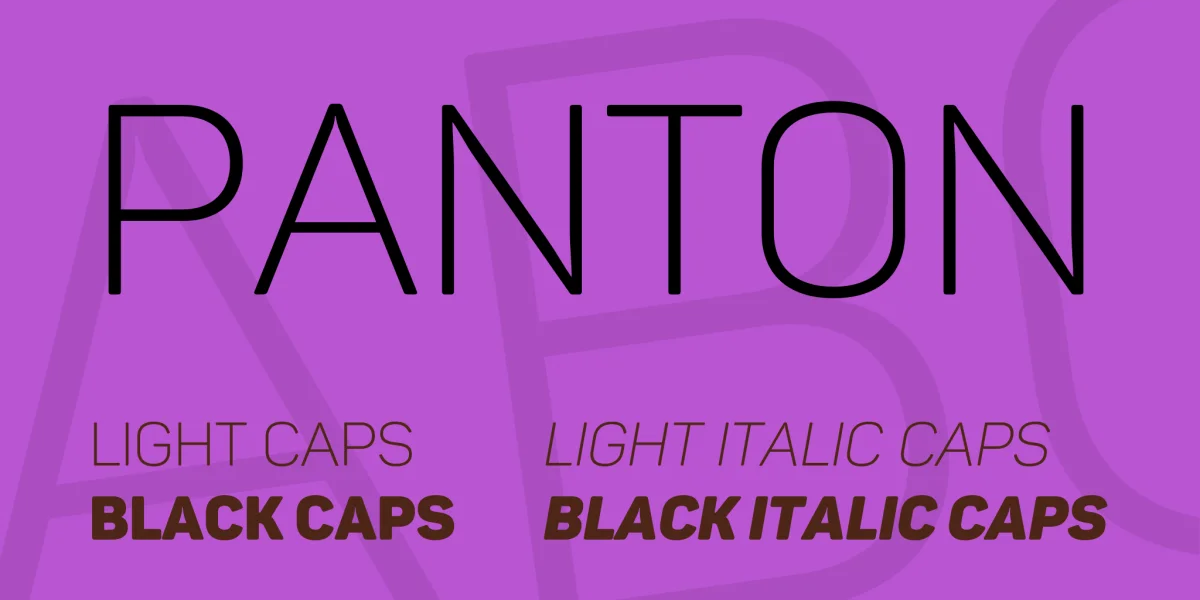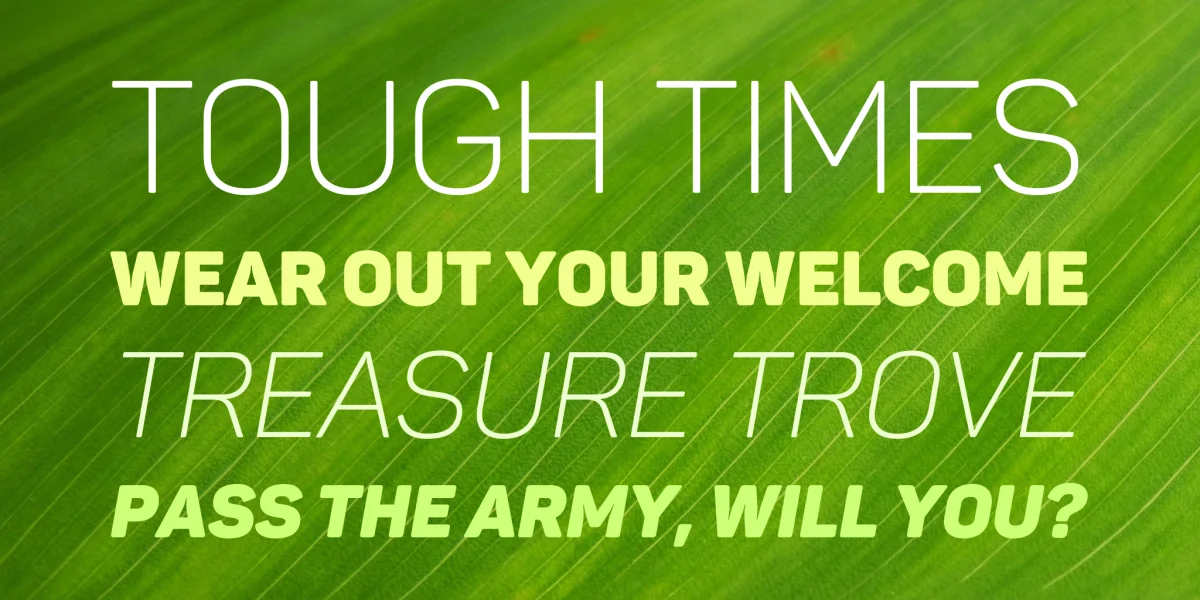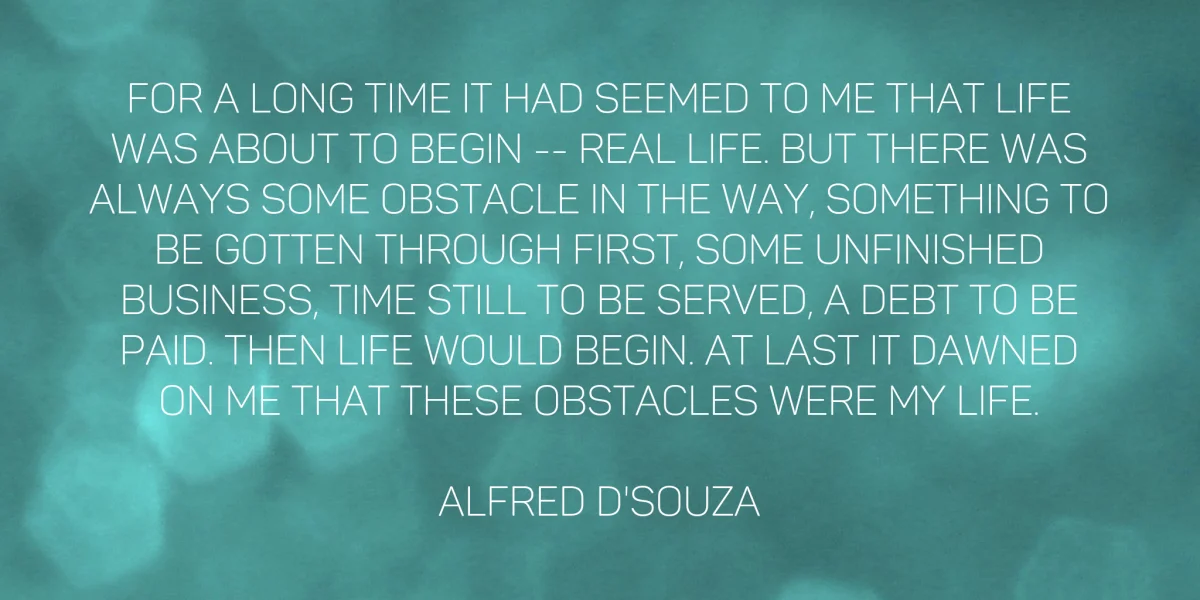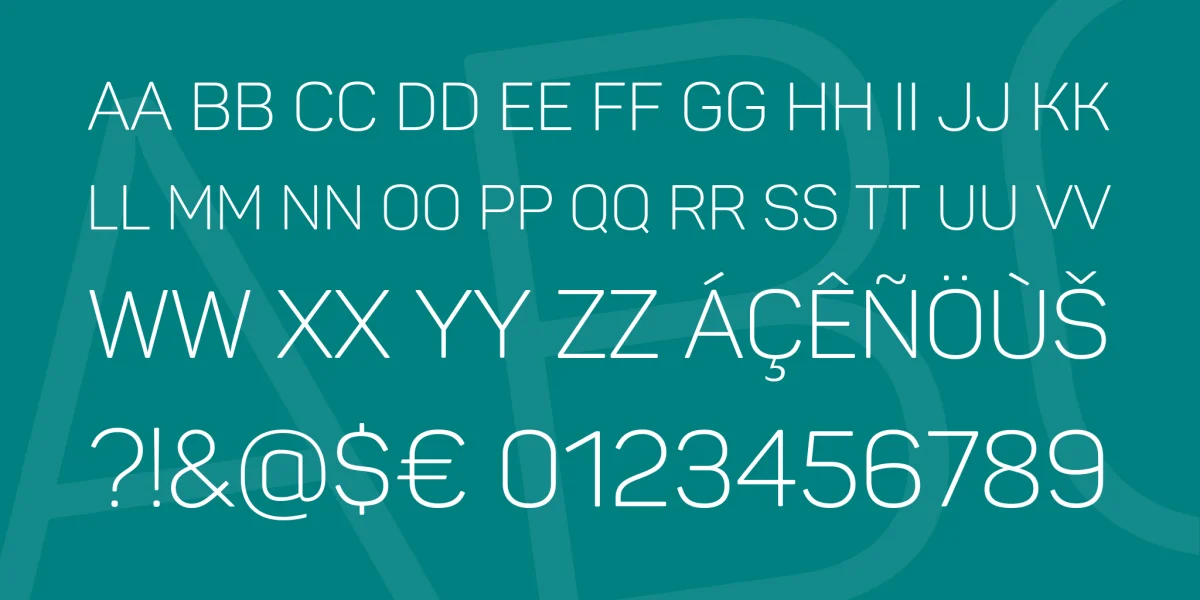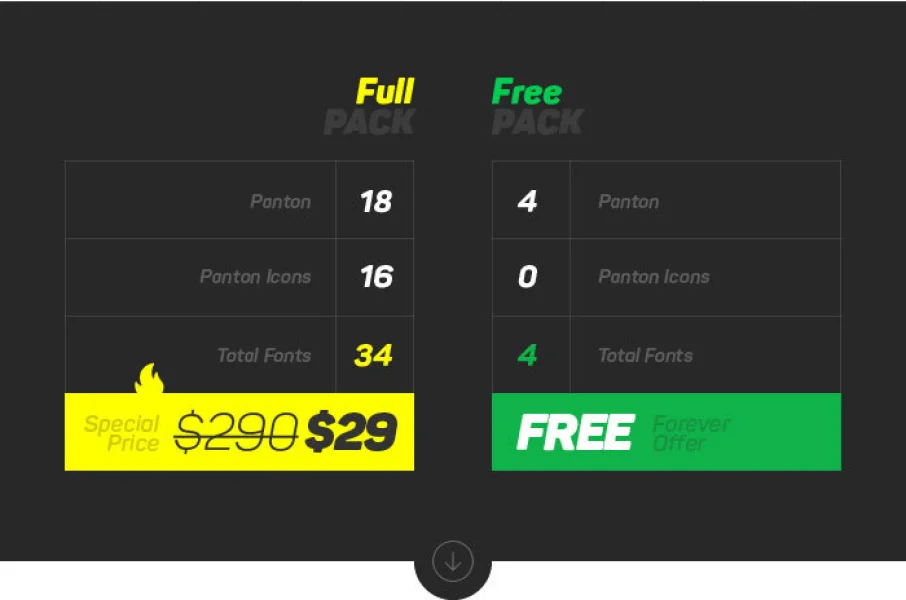
Modern and elegant sans serif font. It is characterized by excellent legibility in both – web & print design areas, well-finished geometric designs, optimized kerning, excellent web-font performance and legibility etc.
Inspired by the classic grotesque typefaces – Panton has his own unique style in expressed perfect softened geometric forms.
The font family is most suitable for headlines of all sizes, as well as for text blocks that come in both maximum and minimum variations.